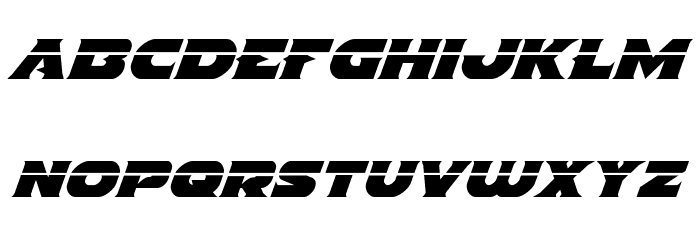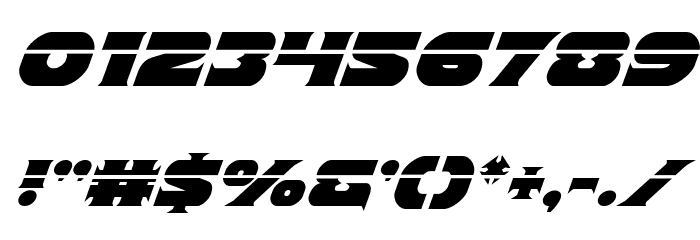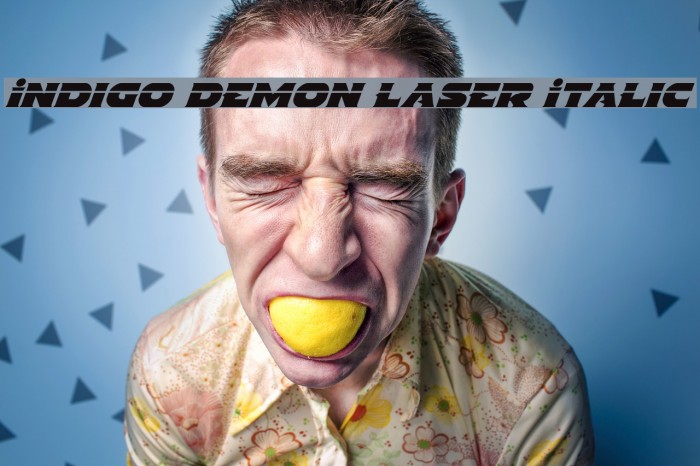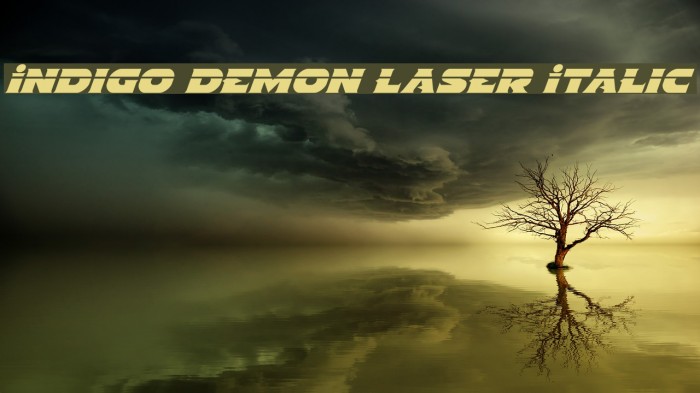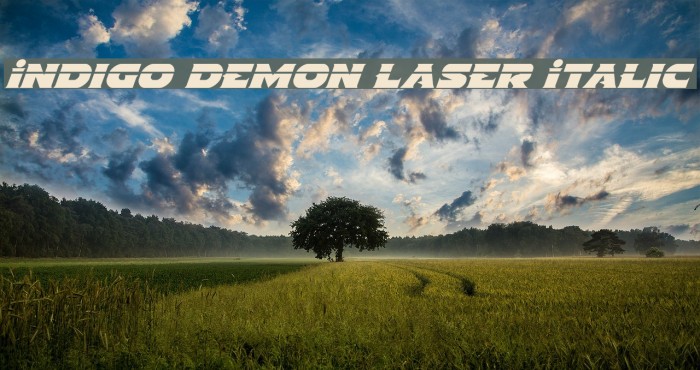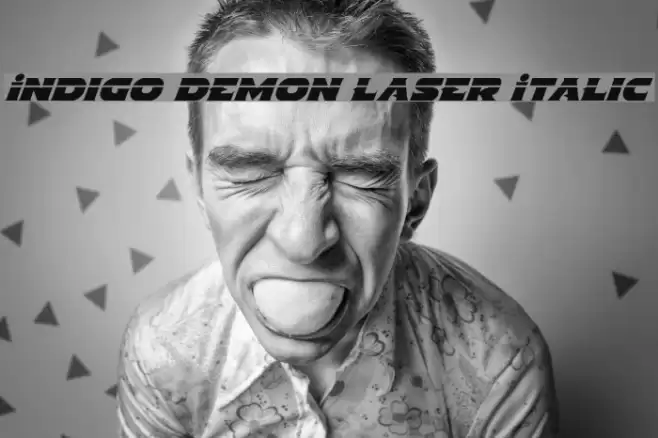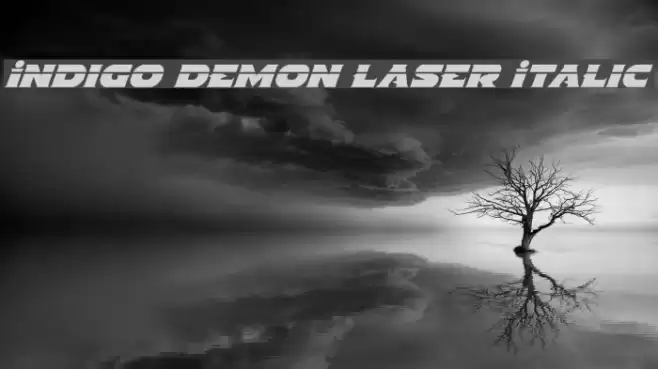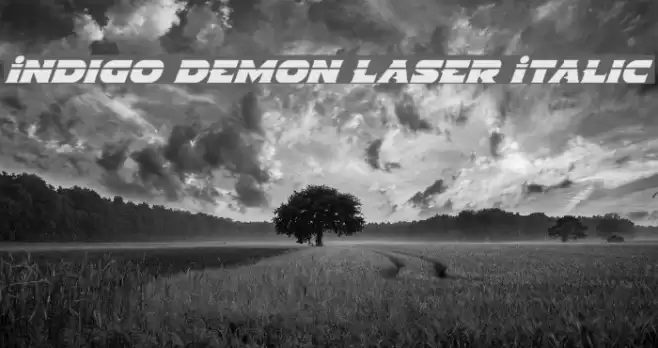
Indigo Demon Laser Italic Font
This font features a bold, italicized style with a futuristic and dynamic appearance. The characters are designed with sharp angles and a forward-leaning posture, giving them a sense of motion and speed. The strokes are thick and consistent, creating a strong visual impact. The font includes uppercase and lowercase letters, numbers, and a variety of special characters, all maintaining the same bold and angular aesthetic. The overall design is reminiscent of sci-fi and tech themes, making it ideal for projects that require a modern and edgy look.
- Proposed Projects: Ideal for sci-fi themed posters, video game titles, tech branding, and futuristic designs.